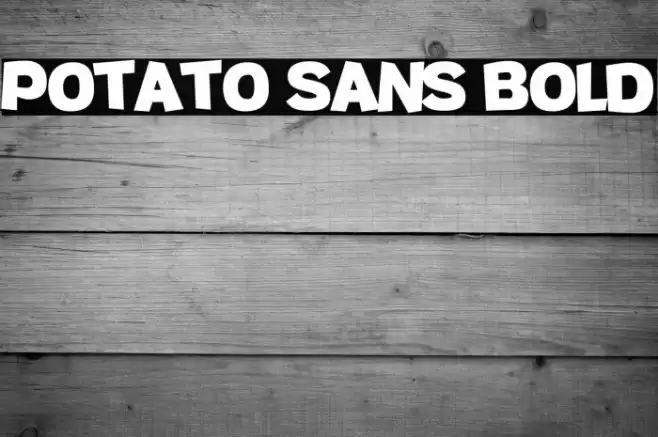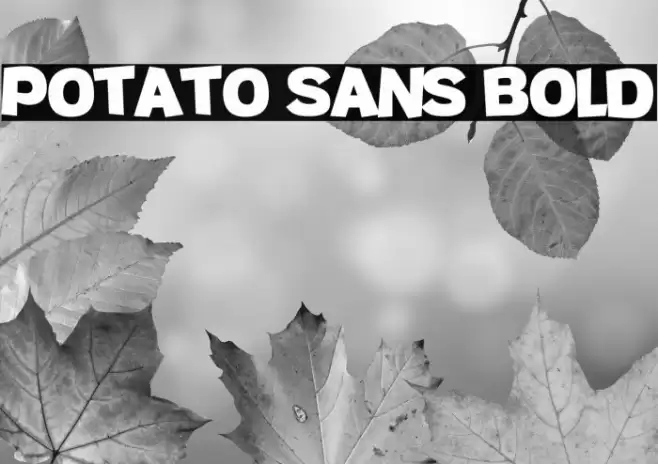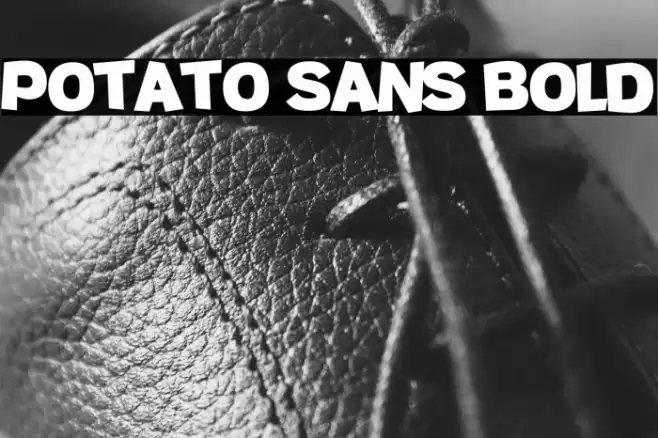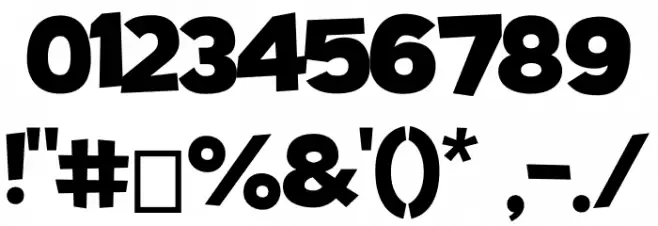
Potato sans Bold Font
Potato sans Bold Description
This bold, playful font features thick, rounded letters with a slightly irregular shape, giving it a whimsical and fun appearance. The characters are designed with a consistent weight, providing a strong and impactful look. The uppercase and lowercase letters maintain a uniform style, while the numbers and special characters complement the overall design. The font's boldness and unique character shapes make it stand out, making it suitable for creative and informal projects.
A bold, playful font with thick, rounded, and slightly irregular characters from Comic fonts.
- Font: Potato sans Bold
- Proposed Projects: Ideal for children's books, comic strips, playful branding, and eye-catching posters.
- Overall Style: Playful, Fun, Whimsical